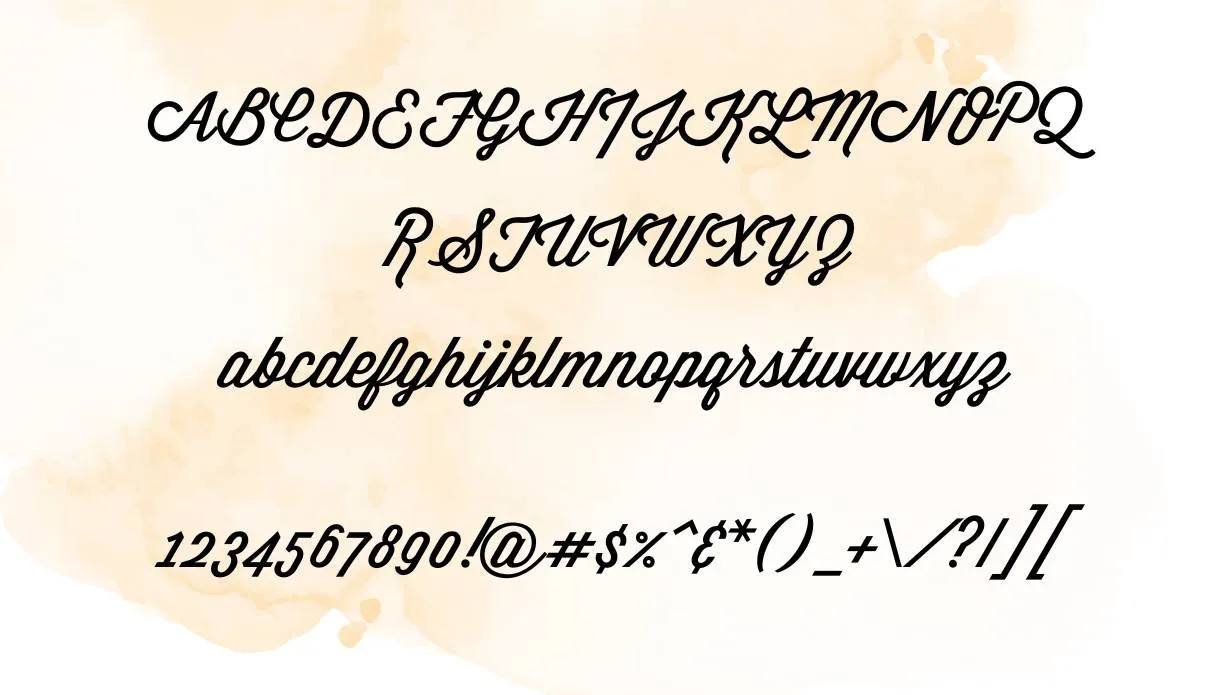
The Wisdom font feels like an ancient manuscript in every stroke. Each character carries the weight of timeless understanding, making your words resonate with profound insight.
It’s as if your text becomes a vessel of centuries-old wisdom, imparting a sense of deep understanding and sagacity to every sentence. Using this font infuses your words with a timeless depth, turning even the simplest phrases into profound reflections.